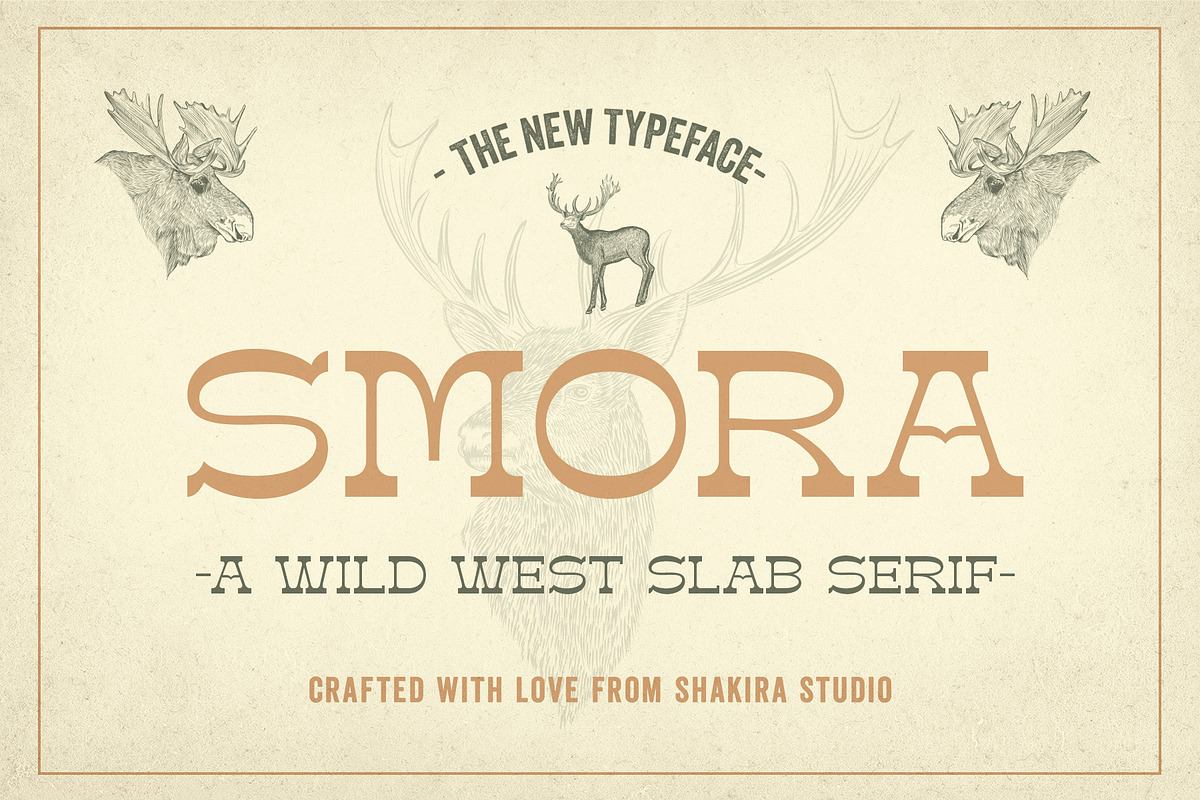
Smora - Western Font Free Download
Smora - Western Font Free Download is a rugged, bold typeface inspired by classic Western aesthetics and vintage Americana. Please note: you must purchase this font for commercial use, but you can test it through a free download. With its strong slab serifs and wild west character, Smora is perfect for posters, logos, product packaging, signage, and any design that needs a tough, rustic vibe.
Its nostalgic charm and detailed letterforms make it a standout choice for both modern and retro-themed projects. Whether you're crafting a whiskey label or a cowboy-themed event flyer, Smora - Western Font Free Download adds authenticity and flair. Fully compatible with design tools like Adobe Illustrator, Photoshop, and others, Smora is easy to use and adds instant personality. Download it today to explore how this bold Western font can bring grit and style to your creative work.